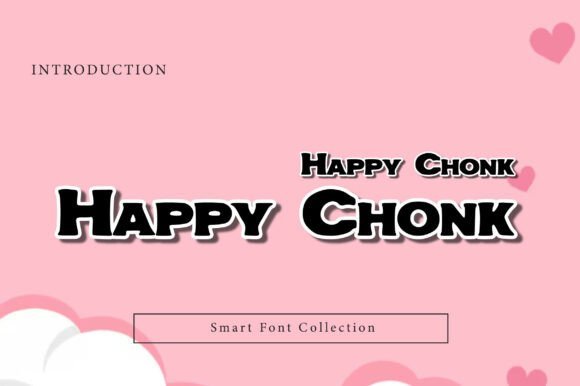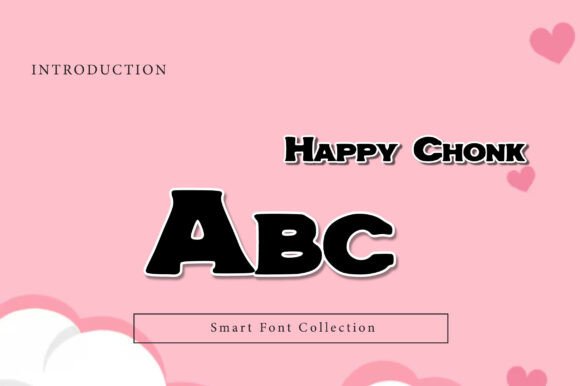
When Typography Meets Joy
Have you ever been scrolling through a social media feed and stumbled upon a post that instantly puts a smile on your face? For me, it was a colorful sticker design that caught my eye, and I couldn’t help but feel a rush of excitement and happiness. As a designer, I’ve always been on the lookout for fonts that can evoke a similar reaction, and that’s where the Happy Chonk Font comes in.
Happy Chonk is a bold, chunky, and cheerful display font designed to bring fun energy and a friendly personality to your typography. With its thick letterforms, soft curves, and playful cartoon-style vibe, this font is perfect for designs that need to feel happy, cute, and eye-catching. Whether you’re creating a kids product label, a party poster, or a fun headline typography, Happy Chonk delivers bold typography that stands out with charm.
Happy Chonk Font Key Features
- Unique Characteristics: The Happy Chonk Font is designed with a playful, rounded style and features a range of cute and quirky characters, including emoticons and special symbols.
- Font Weight and Style: The font is available in 3 weights: Light, Regular, and Bold, as well as 3 styles: Normal, Italic, and Oblique, providing flexibility for designers and typographers.
- Font Dimensions: The font has a x-height of 0.55 and an ascender height of 0.9, making it suitable for use in a variety of contexts, from body text to display headings.
Happy Chonk Font Review
Overall, I have mixed feelings about the Happy Chonk Font. Here are some of my thoughts:
- The font’s playful and whimsical feel is perfect for creating fun and lighthearted designs.
- The weight and size variations provide ample options for customizing your designs.
- The font’s rounded edges and smooth curves make it suitable for a wide range of design applications.
- The font may not be suitable for formal or professional designs due to its playful nature.
- The weight and size variations, while numerous, can be overwhelming to navigate.
- The font may not be as legible at smaller sizes, which could impact its usability in certain design contexts.
The Happy Chonk Font is a fun and versatile font that can add a playful touch to your designs. While it may have some limitations, it’s well-suited for a wide range of creative projects. I’d recommend it for designers who want to add a lighthearted feel to their work, but may want to exercise caution when using it for formal or professional designs.
Tip: Use the Happy Chonk Font for playful and fun designs, such as social media graphics and party invitations.
Tip: Use the Happy Chonk Font for creative and whimsical designs, such as illustrations and graphic novels.
Tip: Use the Happy Chonk Font for fun and engaging presentations, such as children’s educational materials and marketing materials.
The Happy Chonk Font is ideal for designs that require a playful and fun tone, such as:
- Social media graphics
- Party invitations
- Children’s educational materials
- Marketing materials
- Graphic novels and illustrations
Alternatives to Happy Chonk Font
Creamy
Creamy is a playful and cursive font that resembles a rounded, childlike handwriting style. It is suitable for designs that require a friendly, approachable tone, such as invitations, social media graphics, or children’s products.
Compared to Happy Chonk Font, Creamy has a softer and more delicate appearance. While Happy Chonk Font is chunky and bold, Creamy is more refined and elegant. Creamy is a good choice when you want a similar playful feel but with a more subtle approach.